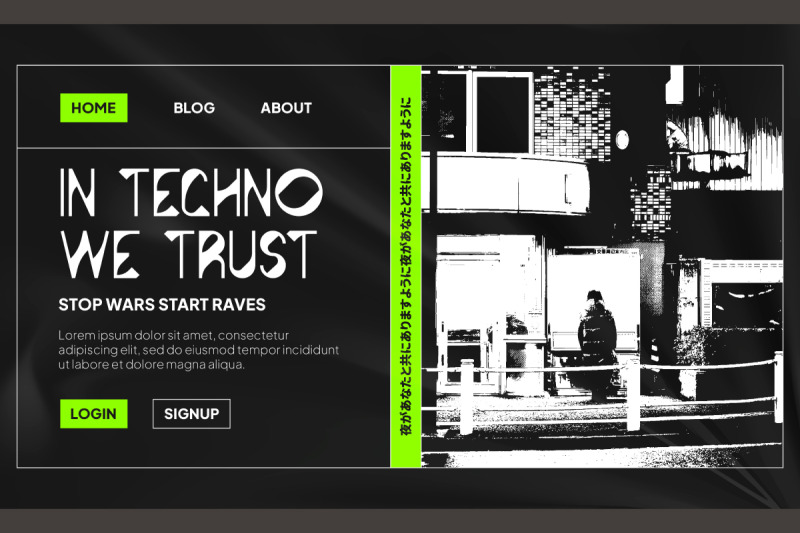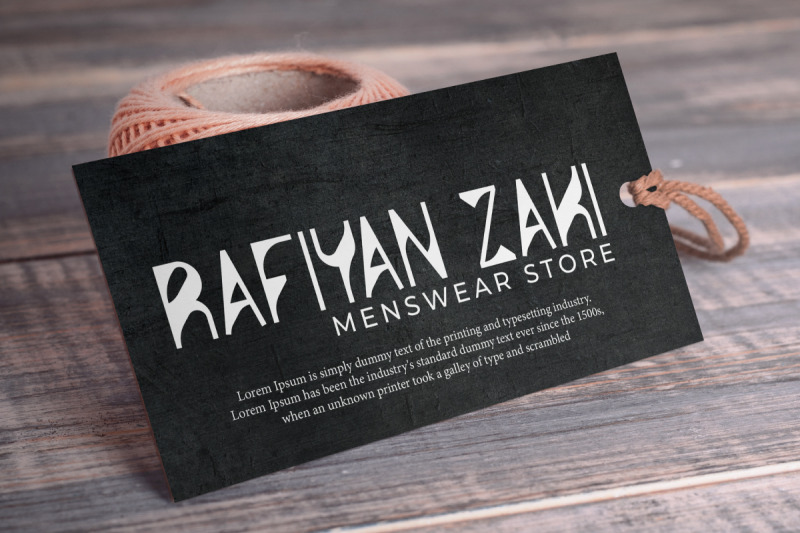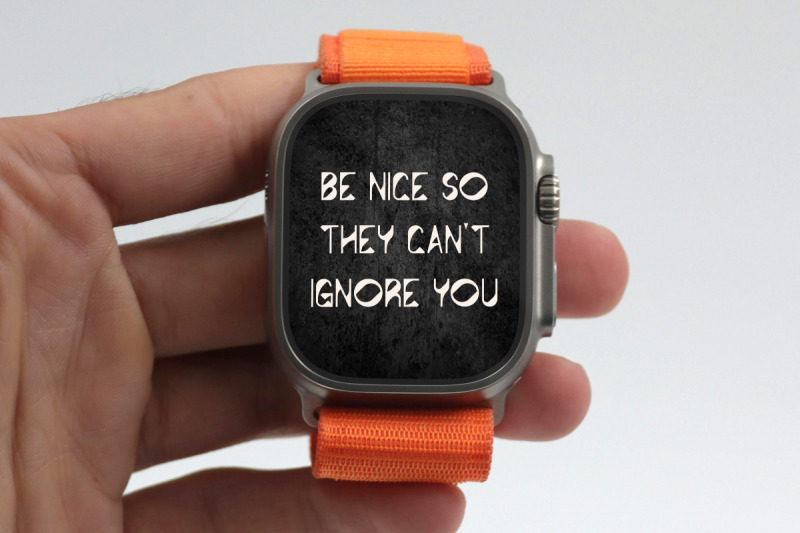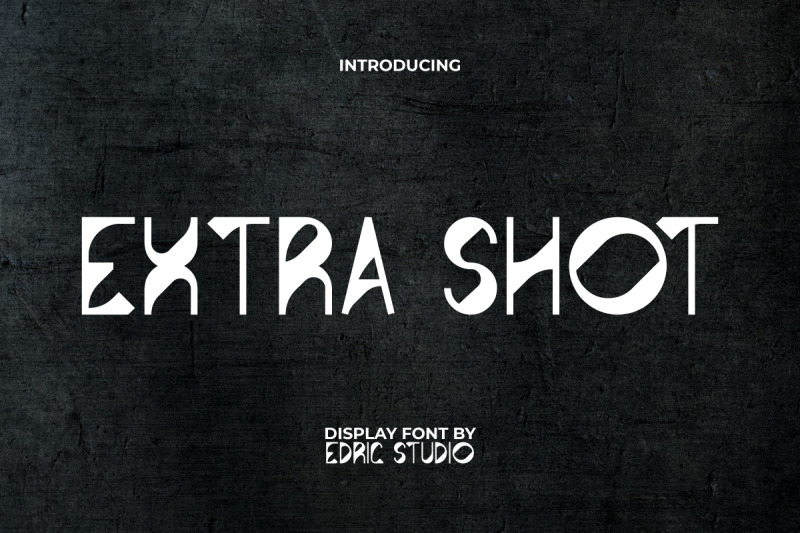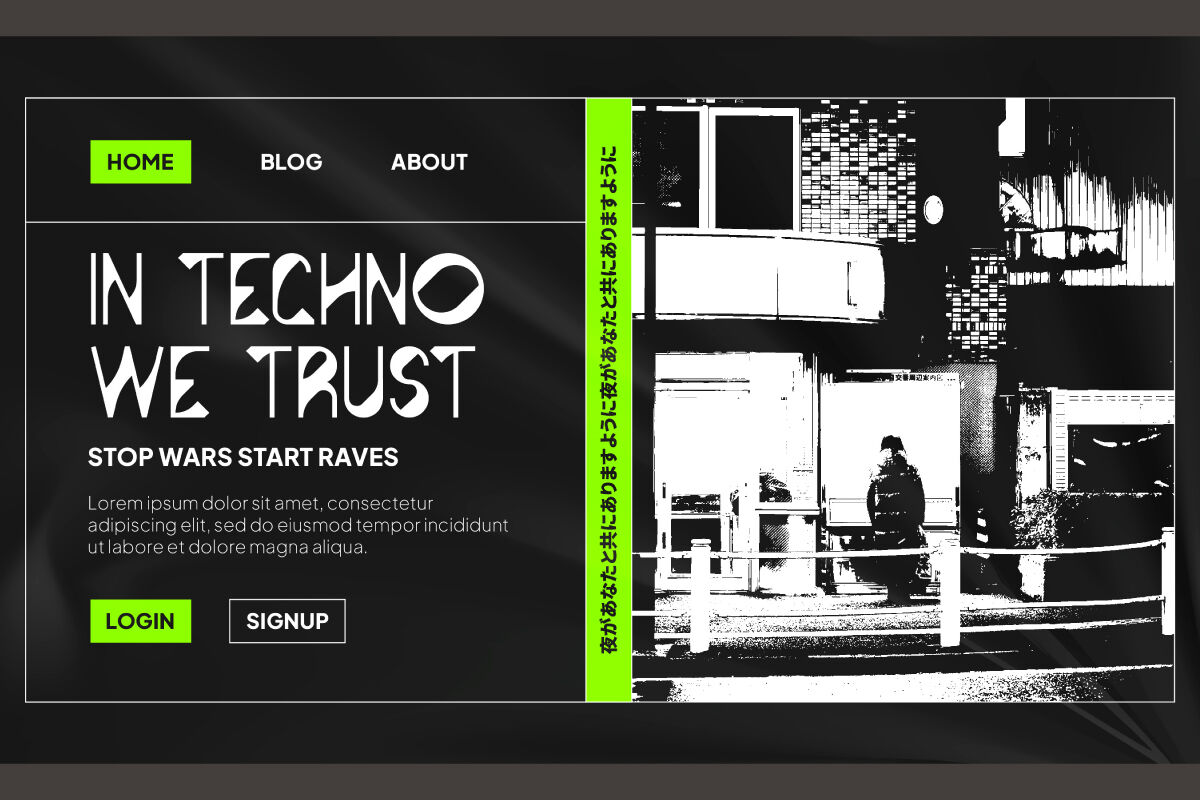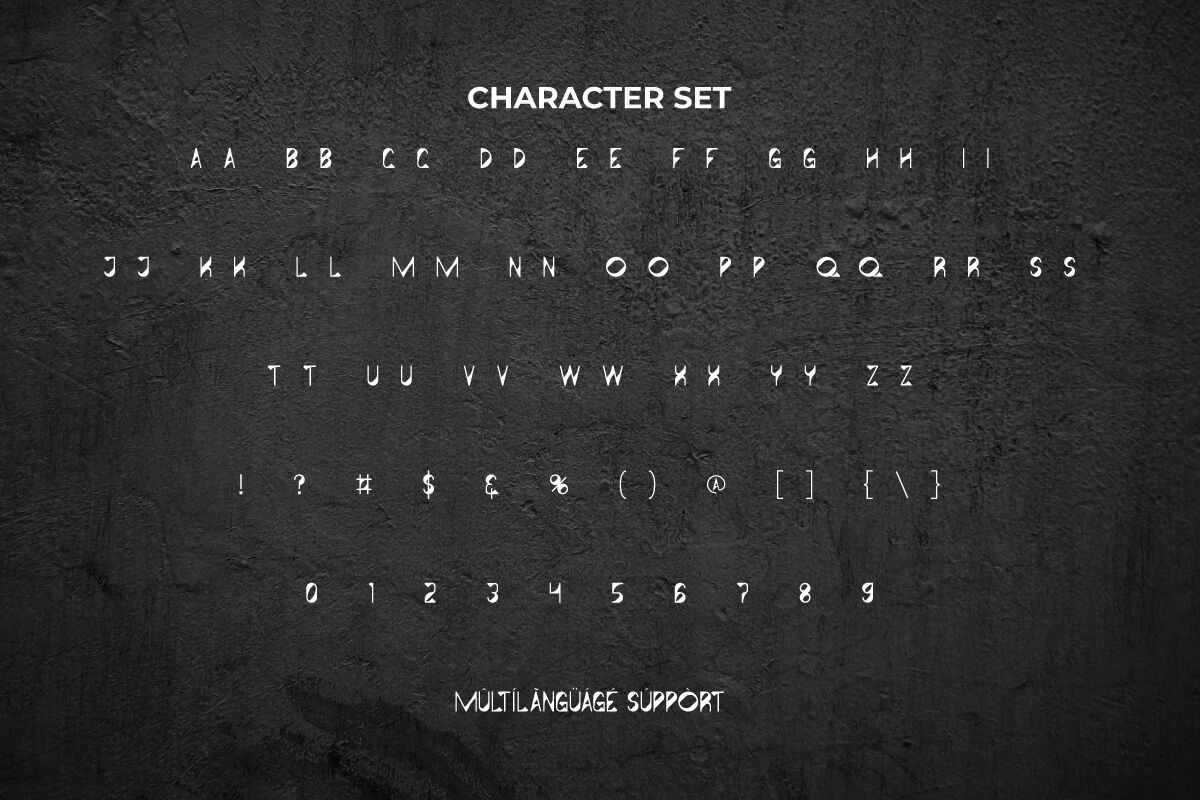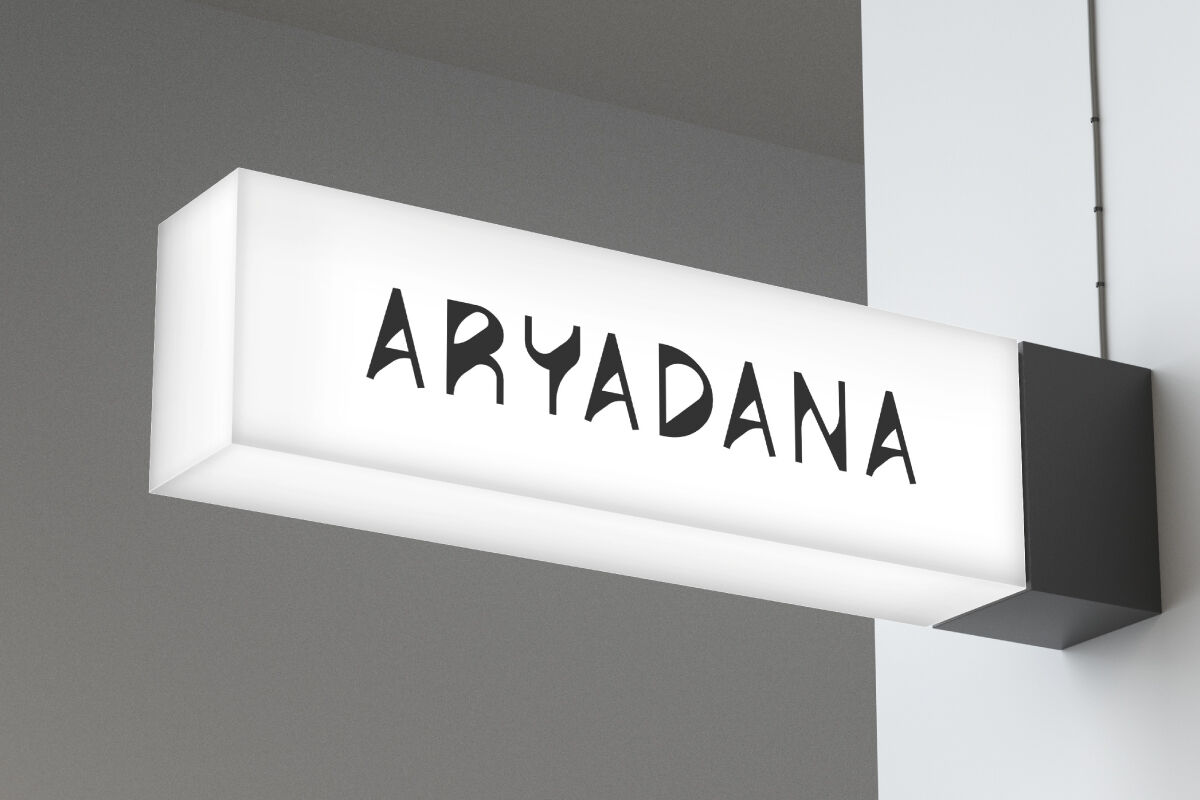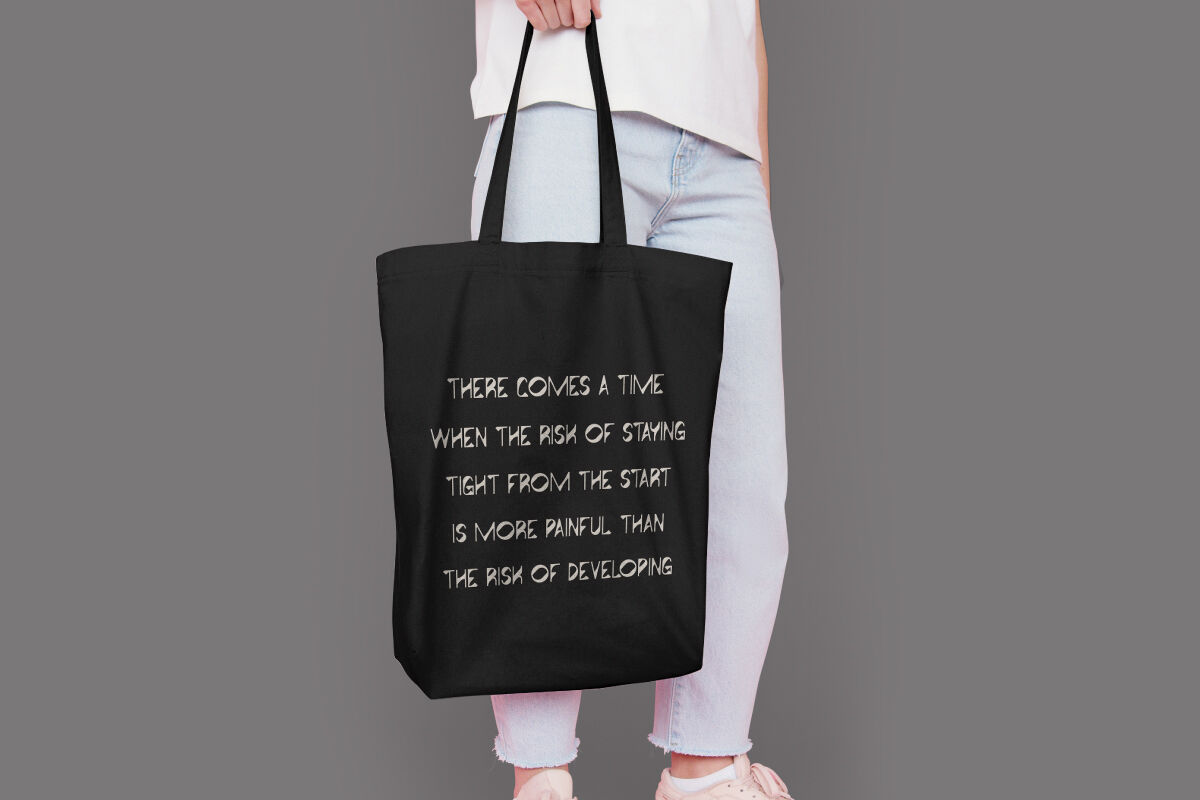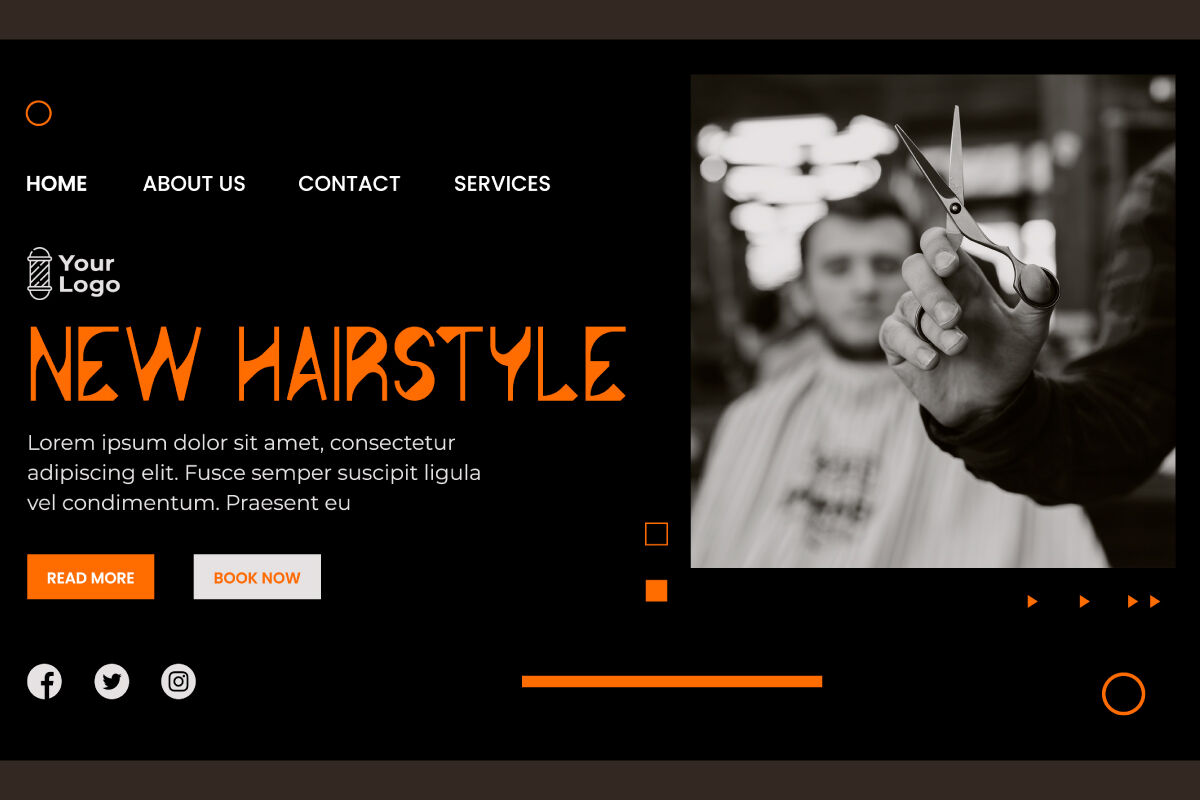
Extra Shot Font is a unique artistic display font that combines tchno modern style with a classy touch. With visually attractive letter proportions you can create a more lively, clean and elegant style design. Great for use in blogs, brand logos, brochure, cards design, headers, headline, posters, screen printing of tote bags, sign company, stationery, titles, websites, etc.
Introducing Extra Shot Sans Serif Font – a bold, modern, and versatile typeface crafted to energize your creative projects with confidence and clarity. Inspired by strong geometric shapes and clean lines, Extra Shot delivers a professional yet stylish look that works beautifully across both print and digital media.
Extra Shot Sans Serif Font combines simplicity with sophistication. The clean aesthetic ensures your designs remain sharp and professional, while its modern touch gives projects a dynamic and contemporary feel. From corporate branding to lifestyle content, this font adapts seamlessly to a wide range of industries.
Extra Shot Sans Serif Font includes a complete set of ALL CAPS for Uppercase and Lowercase Letters, Numbers, Punctuation and Symbols. Specially designed in a modern and minimalist style. This font combines clarity and strength. With its distinctive characteristics, this font is ready to give a prominent and classy impression to each of your projects. This font is ideal for barber, clothing brand, craftsman, film, graphic design, sportswear and other projects that require a impactful and professional look.